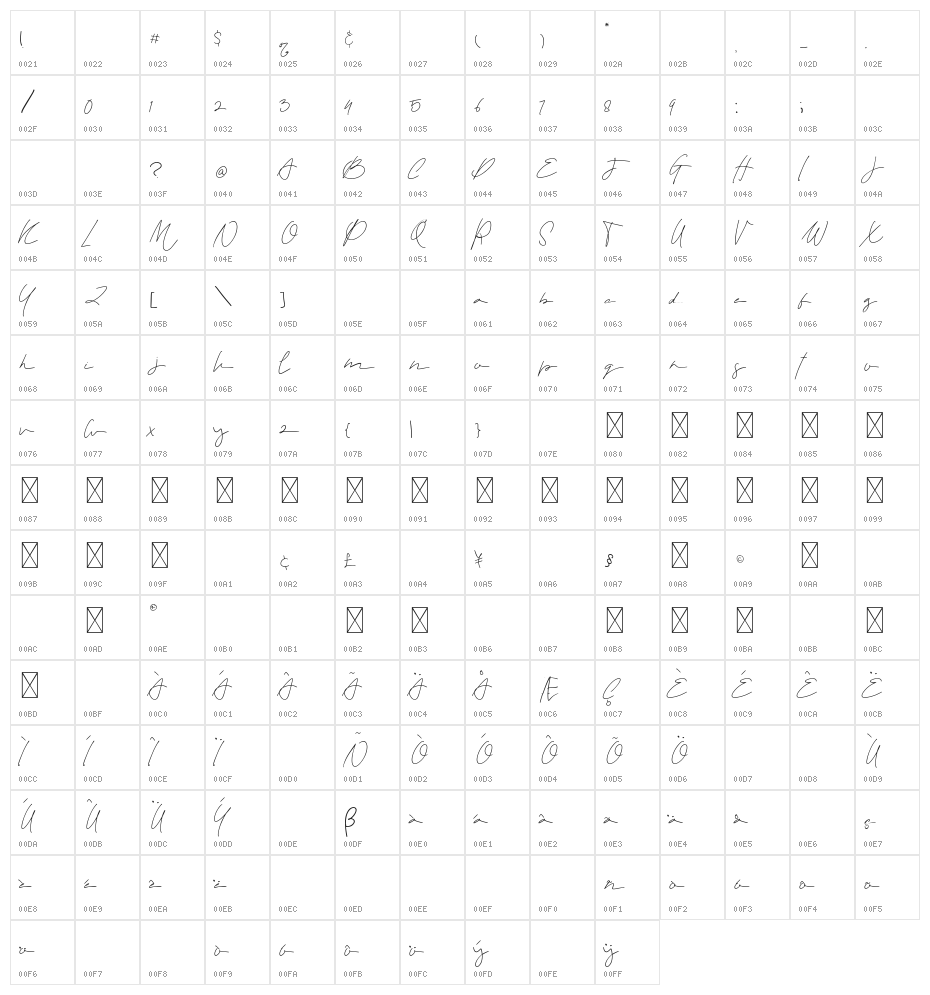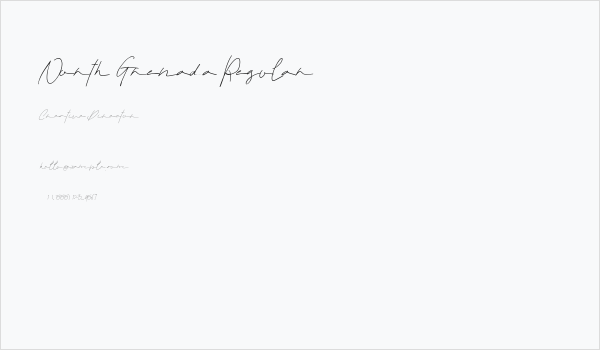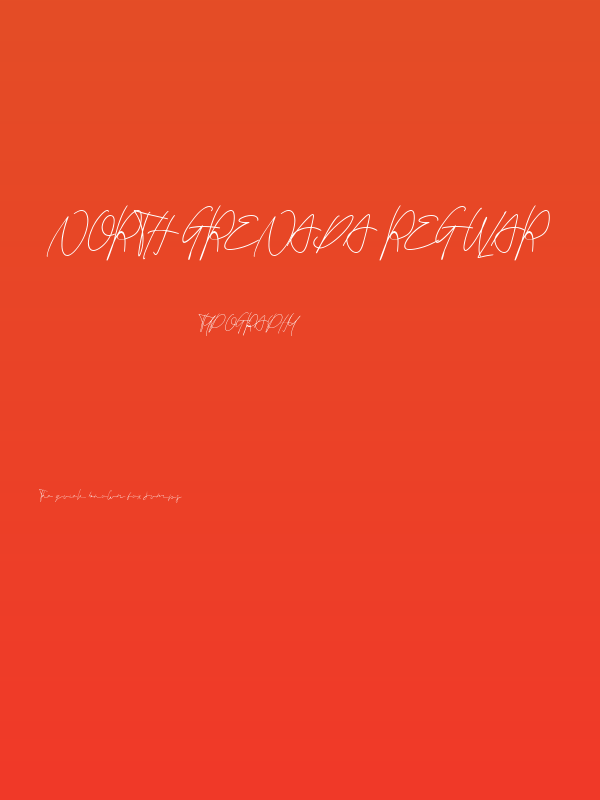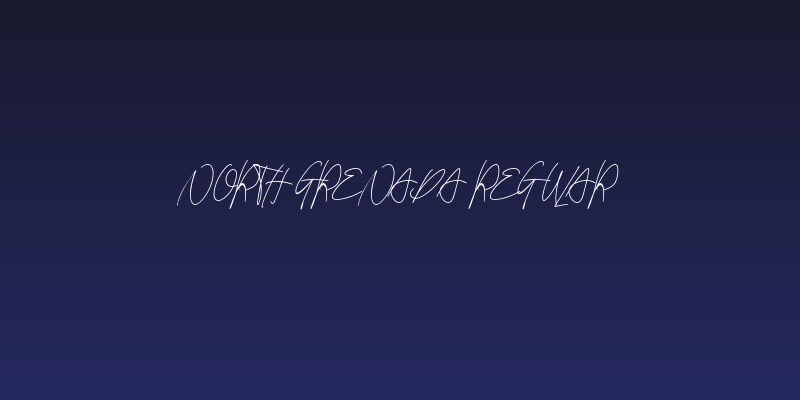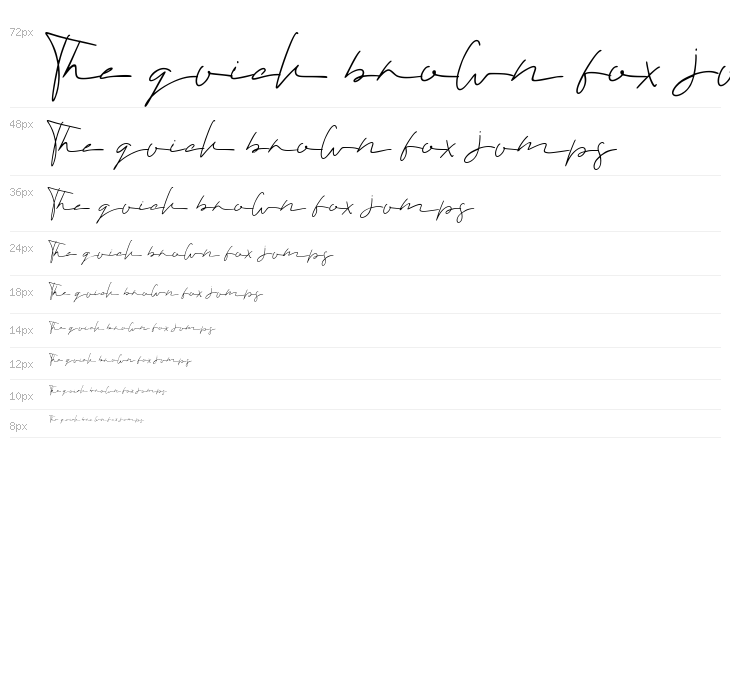
North Grenada Regular Font
North Grenada Regular Description
This font features a fluid and elegant handwritten style, characterized by its smooth, flowing lines and cursive letterforms. The uppercase letters are bold and expressive, while the lowercase letters maintain a consistent, graceful flow. The numerals and special characters complement the overall aesthetic, adding a touch of sophistication. The font's design is reminiscent of personal handwriting, offering a sense of warmth and authenticity. Its organic curves and natural rhythm make it ideal for projects that require a personal touch.
Use CaseLogos, Invitations, Personal notes
Proposed ProjectsIdeal for wedding invitations, personal branding, greeting cards, and artistic projects.